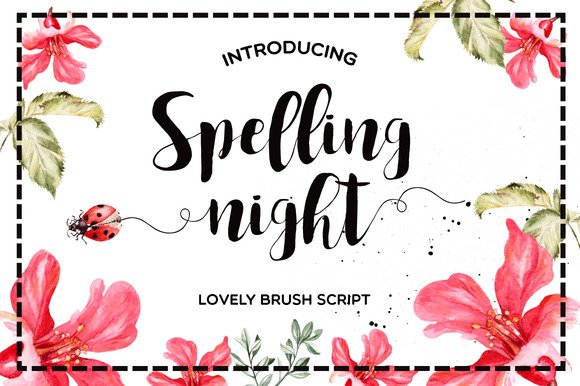
Spelling Night Font
This fonts are perfect for wedding invitation or postcard for your friend. Also with their help, you can create a logo or beautiful poster. Or just use for your small business.